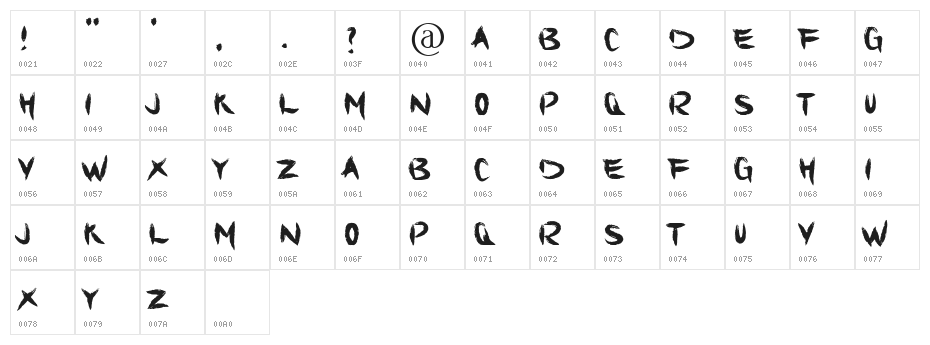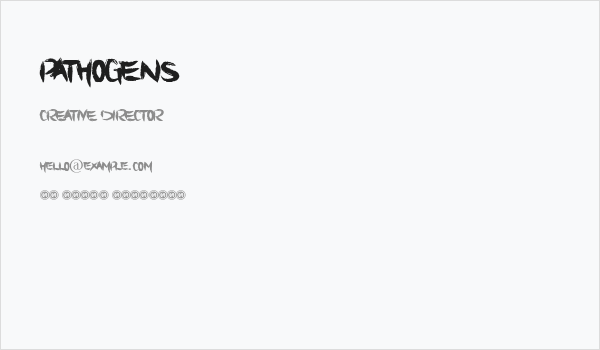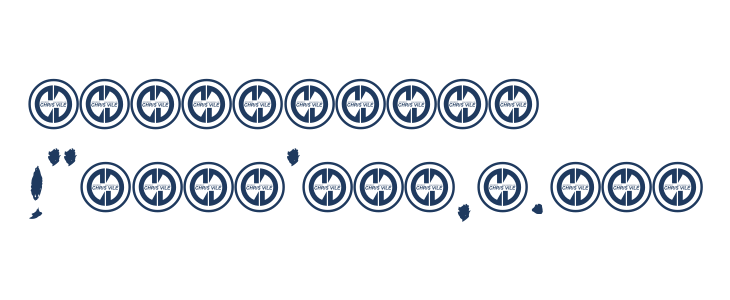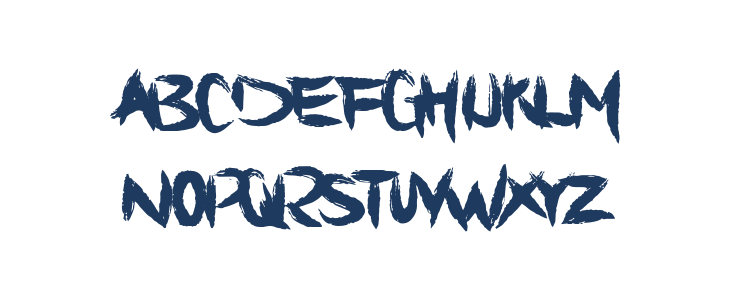
Pathogens Font
Pathogens Description
This font exudes a raw, energetic vibe with its bold, brushstroke-like appearance. The characters are irregular and dynamic, giving off a sense of movement and intensity. The uppercase and lowercase letters maintain a consistent style, with jagged edges and varying stroke widths that create a sense of urgency and spontaneity. The numbers and special characters follow the same aesthetic, ensuring a cohesive look across all text. This font is ideal for projects that require a strong, impactful visual presence, such as posters, album covers, or branding for edgy, modern products.
| Proposed Projects | Ideal for posters, album covers, and edgy branding projects. |